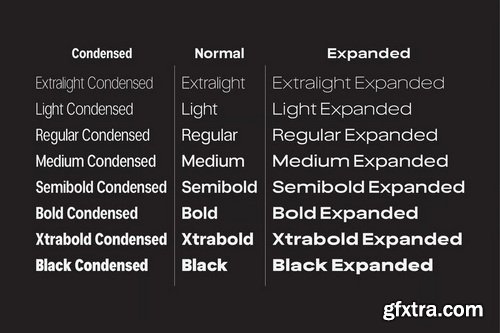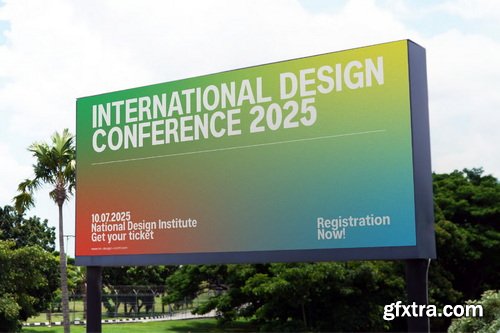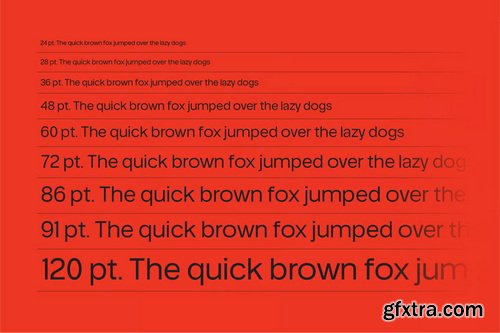
Neue Helvena Sans Serif Grotesk - 24 Fonts
Elevate your design arsenal with Neue Helvena, the sophisticated evolution of the classic neo-grotesk. Engineered for today’s dynamic brand identity and immersive digital experiences, this font is the definitive answer to designers seeking flexibility, clarity, and timeless corporate style.
- 24 Styles of Power: Neue Helvena provides an unparalleled range of weights and widths, spanning Extra Light to Black and Condensed to Expanded. This extensive font family ensures perfect visual hierarchy across all mediums from a subtle body text on a website to a powerful display headline on a large poster.
- The Next-Generation Grotesk: We took the trusted principles of the Grotesk style and upgraded it. Neue Helvena features a low contrast aesthetic, prioritizing legibility and a modern, minimalist look, ideal for brand identity and professional corporate communications.
- Advanced Typographic Control: Go beyond the standard. Neue Helvena is packed with OpenType features, including powerful ligatures and stylistic alternates, giving you the creative edge for impactful logo design and unique headline compositions.
- Extensive Language Support: Designed for global reach, supporting Basic Latin and Extended Latin characters.